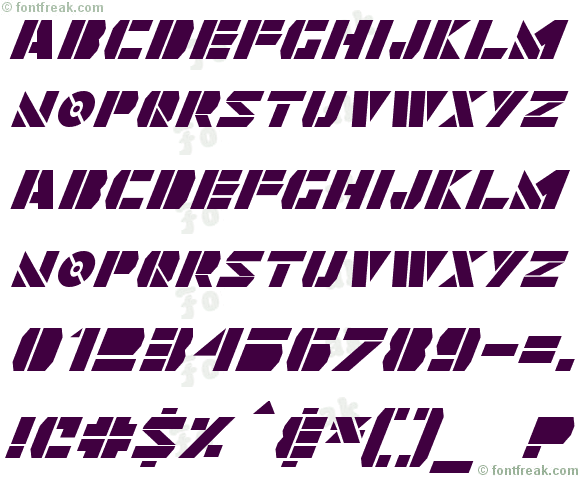
Quintanar Oblique
Quintanar
About Quintanar Oblique
Quintanar Oblique, designed by Neale Davidson in 2011, is a striking display font that falls into the category of decorative typefaces. This font showcases a unique blend of angular and dynamic forms, making it ideal for projects that require a bold statement. The overall stroke weight is moderate, with distinct contrasts that enhance its visual impact. The oblique slant adds a sense of movement and energy, while the carefully crafted spacing ensures clarity and legibility, even at larger sizes.
Quintanar Oblique is particularly well-suited for a variety of creative applications. Its bold character makes it an excellent choice for movie posters, where attention-grabbing typography is essential. It also works wonderfully for restaurant menus, lending a contemporary flair to the dining experience. Furthermore, the font can be effectively utilized in branding materials for small businesses, helping to convey a modern and innovative image. Graphic designers will appreciate its versatility for use in promotional materials, fashion advertising, and even event signage.
The target audience for Quintanar Oblique includes graphic designers, small business owners, and content creators who seek to make an impact with their visual communications. This font appeals to those looking for something distinctive that stands out in a crowded marketplace.
What sets Quintanar Oblique apart is its ability to balance artistic expression with practical application. The font’s unique characteristics make it a memorable choice that captures attention while remaining functional for a range of uses. For those interested in adding this captivating typeface to their collection, a Quintanar Oblique font free download is available, allowing users to explore its potential in their projects.